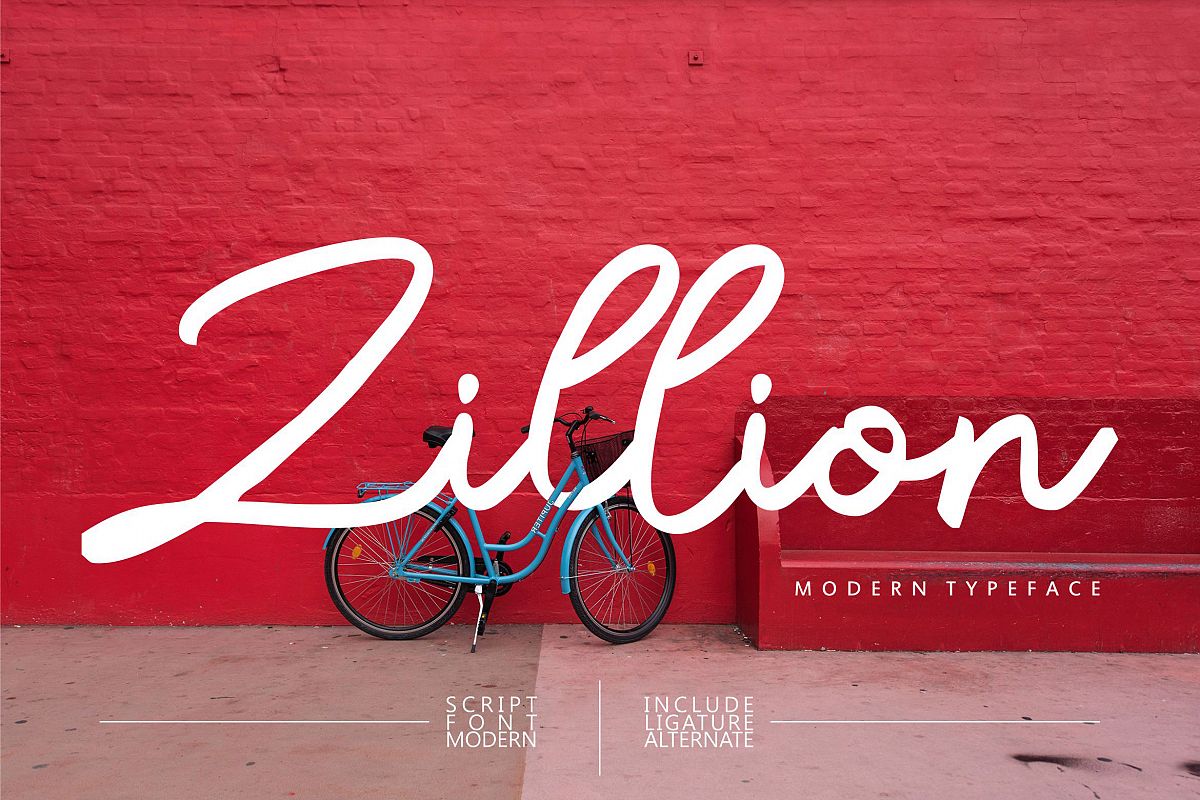
Zillion| Modern Script Font
Zillion| Modern Script Font with a calligraphy style, So beautiful on invitation like greeting cards, branding materials, business cards, quotes, posters, and more!The alternative characters were divided into several features such as Stylistic Sets, Stylistic Alternates, Contextual Alternate, SWASH and Ligature. The Open Type features can be accessed by using Open Type savvy programs such as Adobe Illustrator, Adobe InDesign, Adobe Photoshop Corel Draw X version, And Microsoft Word. And this Font has given PUA unicode (specially coded fonts). so that all the alternate characters can easily be accessed in fullWhat’s Included :
• Hundred of glyphs
• Alternates and Ligatures
• Punctional
• Fonts include Multilingual Support